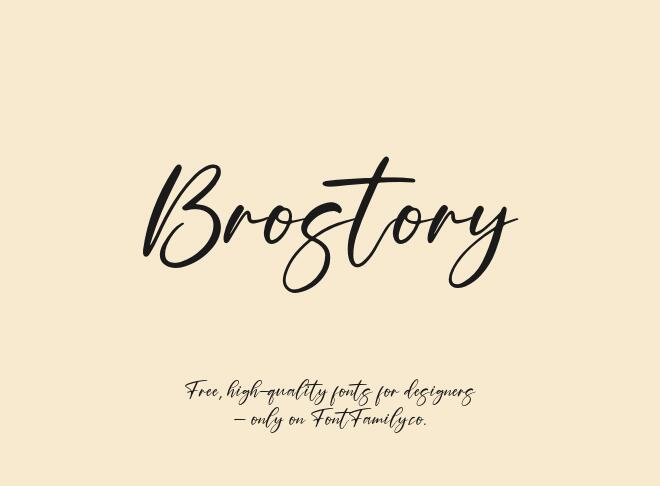
Brostory Font
Introducing the Brostory Font, an innovative and modern handwritten typeface by DesignStudioBB. With its playful and bold characteristics, this font offers a unique blend of creativity and modernity, making it perfect for various design applications. Brostory Font stands out in logos, headlines, posters, and social media graphics. Its modern style is somewhat reminiscent of popular handwritten fonts, yet it brings its unique touch to the table. Its bold strokes make it highly readable, even at smaller sizes. The Brostory Font is a magnificent choice for designers looking to inject a touch of modern playfulness into their work. Its versatility and charm make it a must-have in every designer's toolkit.